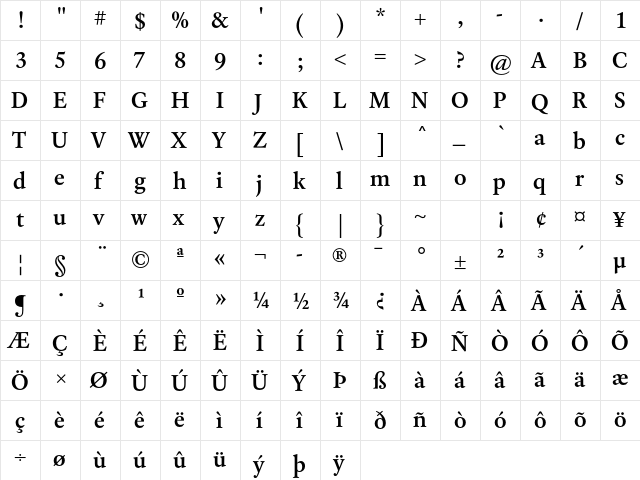
Laurentian Std SemiBold
Design Context for Laurentian Std Typeface
Laurentian Std takes a measured approach to typography — its balanced proportions and neutral character make it a reliable workhorse for both digital and print work. Its bold stroke weight gives it real presence on the page.
Pro Tip: Pair Laurentian Std with a font of contrasting weight or personality to build a more expressive typographic hierarchy.